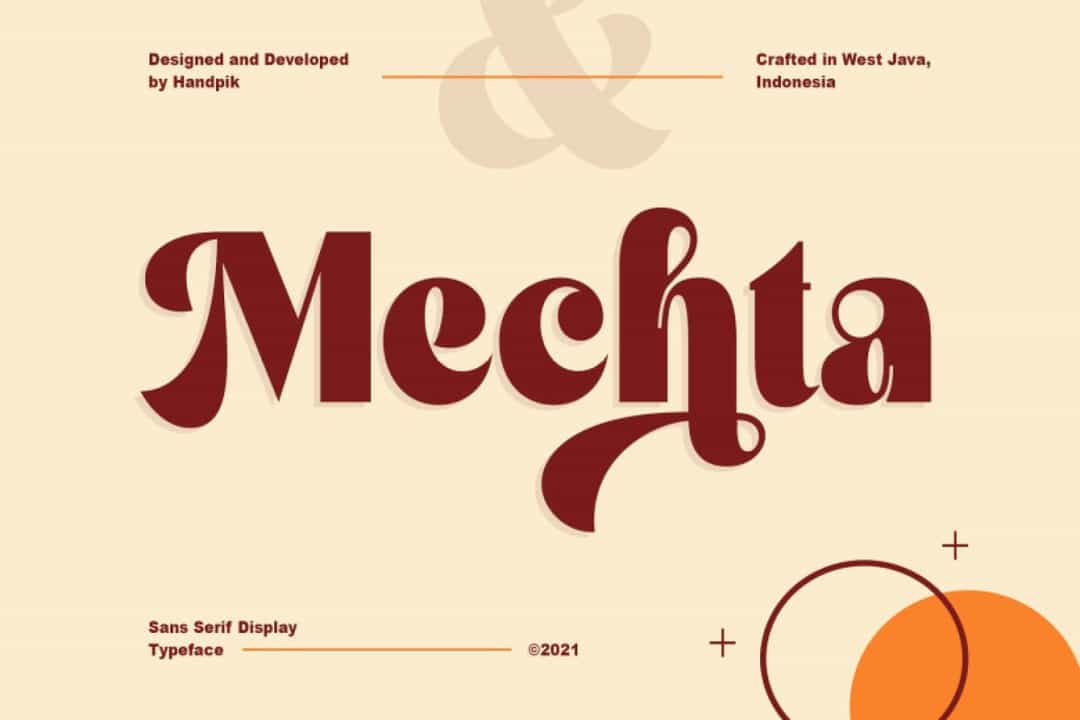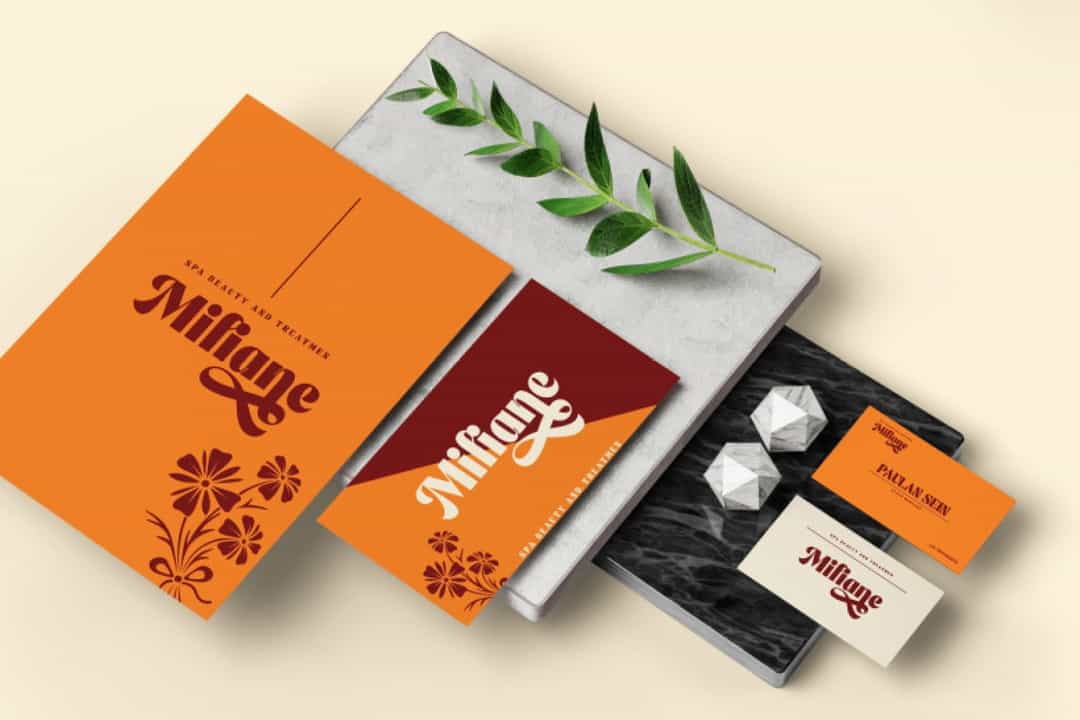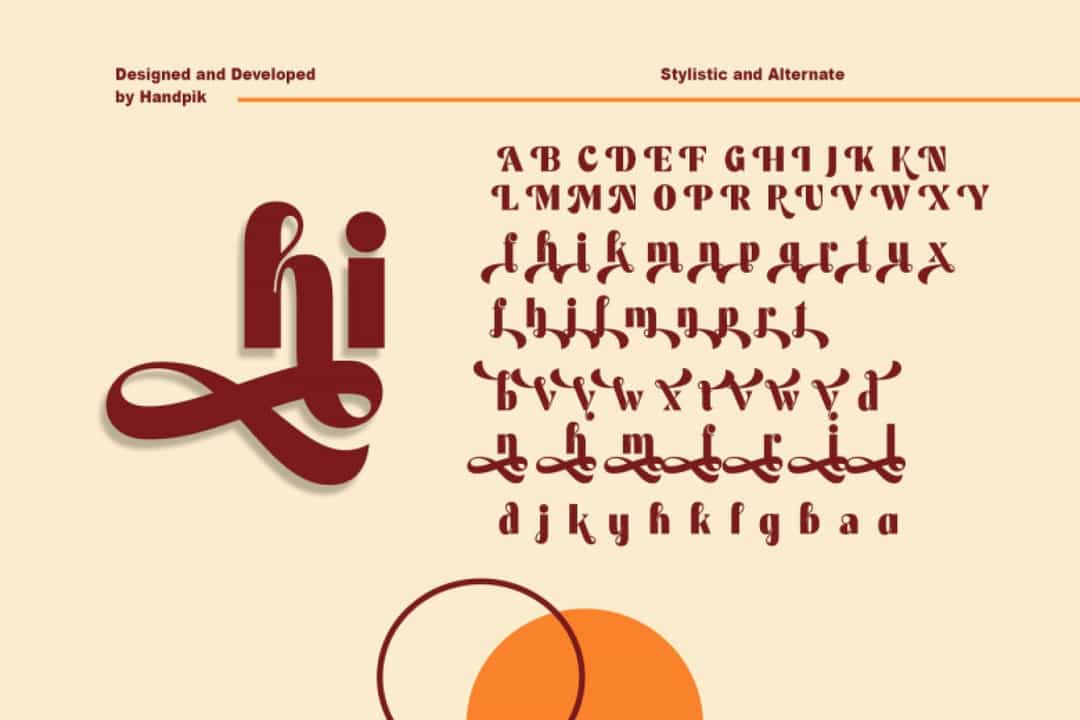
Mechta is an elegant sans serif display typeface which makes an impactful statement about authenticity, trustworthiness and elegance in any message that needs conveyed. Ideal for crafting applications such as cards, labels, branding and more – Mechta makes an exceptional addition to any creative project or crafting idea!